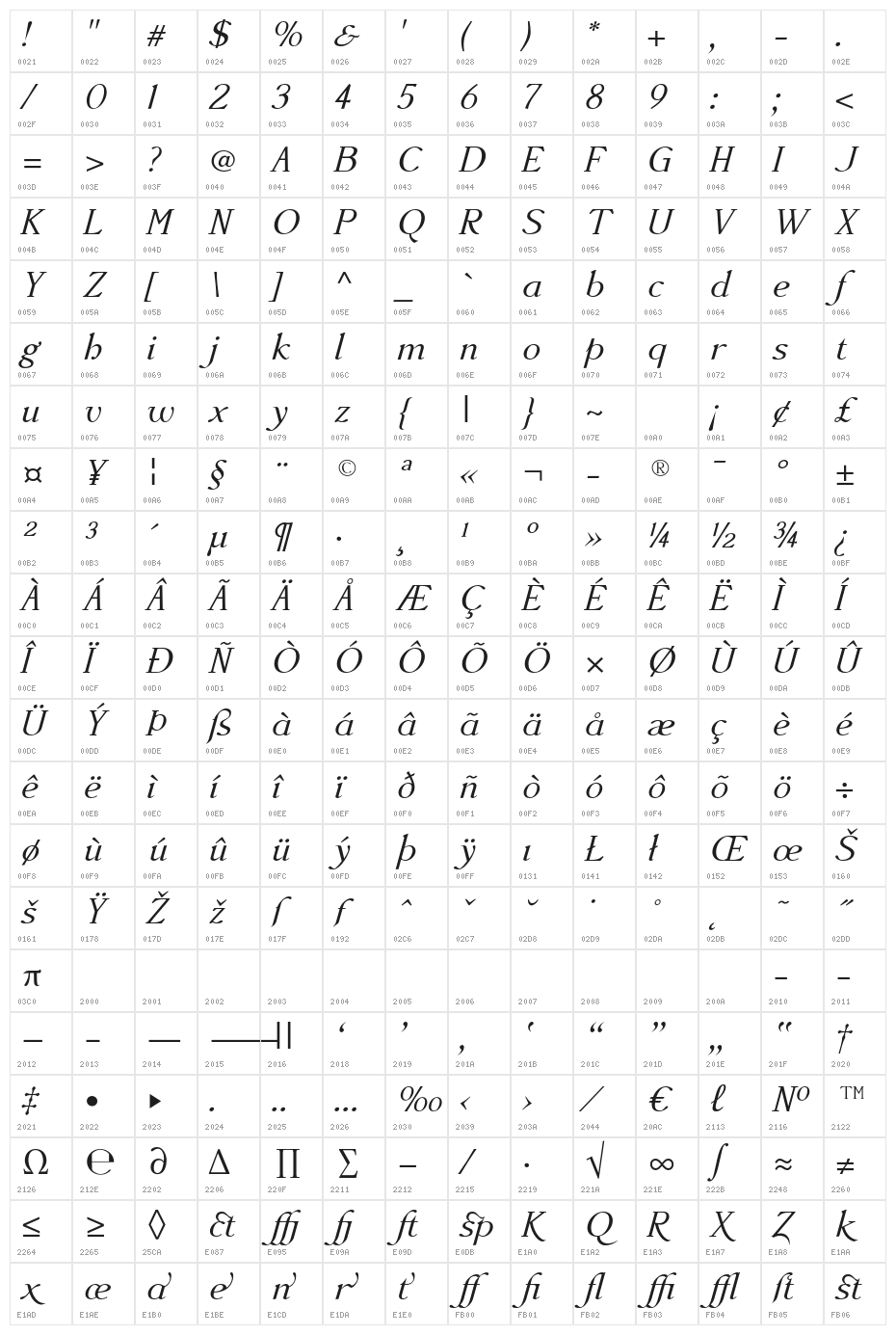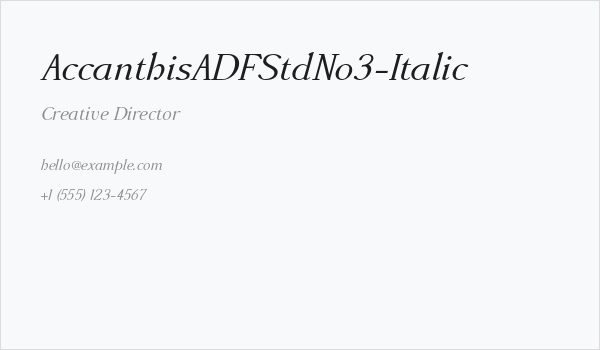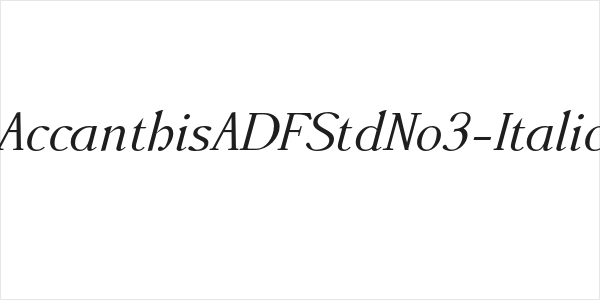
AccanthisADFStdNo3-Italic Font
AccanthisADFStdNo3-Italic Description
This elegant typeface features a classic italic style with smooth, flowing curves and a refined appearance. The uppercase letters are tall and slightly narrow, while the lowercase letters maintain a consistent slant, enhancing the font's graceful look. The numerals are well-proportioned, complementing the overall aesthetic. The special characters are designed with the same attention to detail, ensuring a cohesive appearance across all glyphs. This font's sophisticated style makes it suitable for a variety of applications where elegance and readability are desired.
| Proposed Projects | Ideal for wedding invitations, formal event programs, elegant branding, and high-end product packaging. |